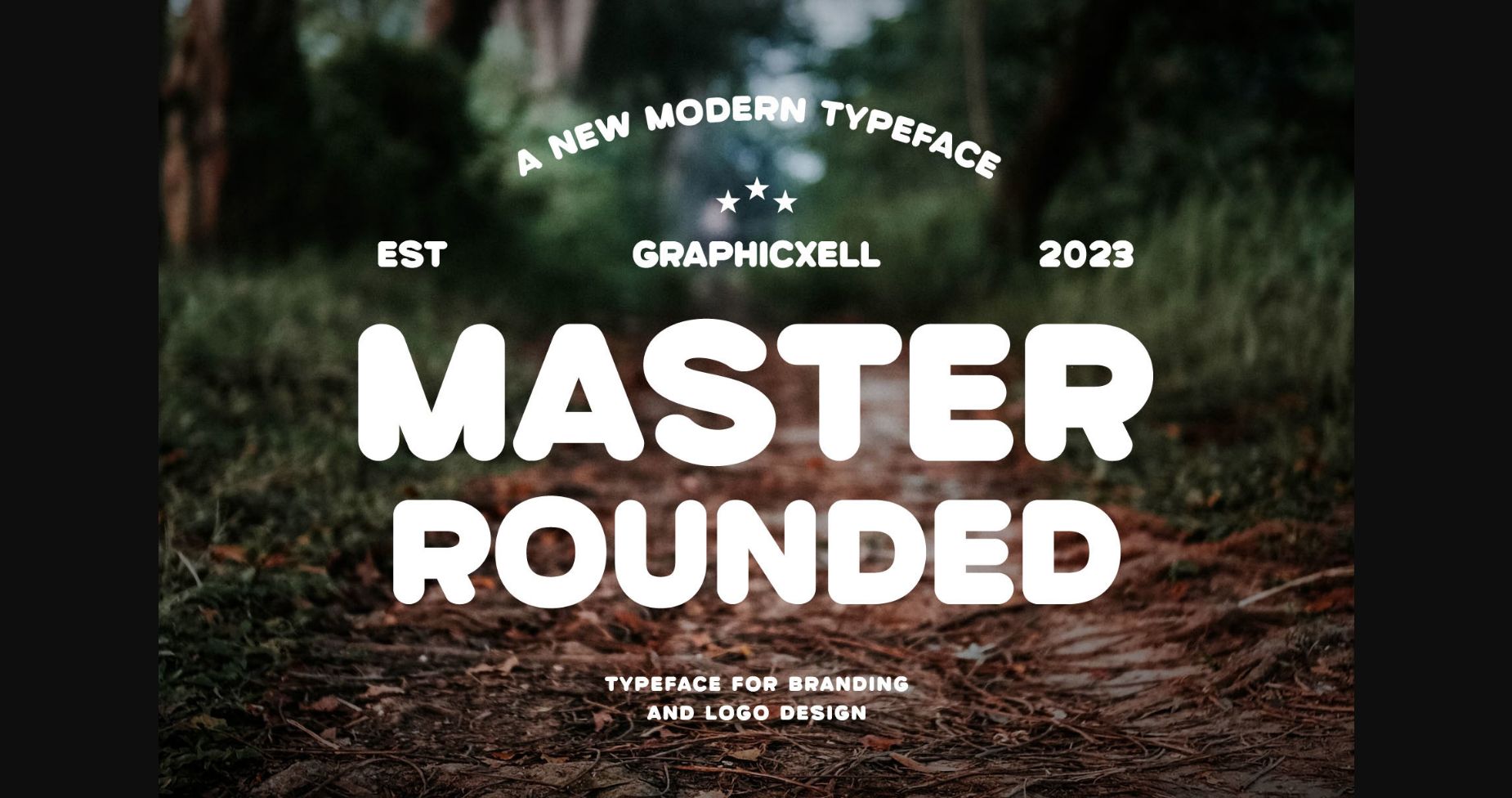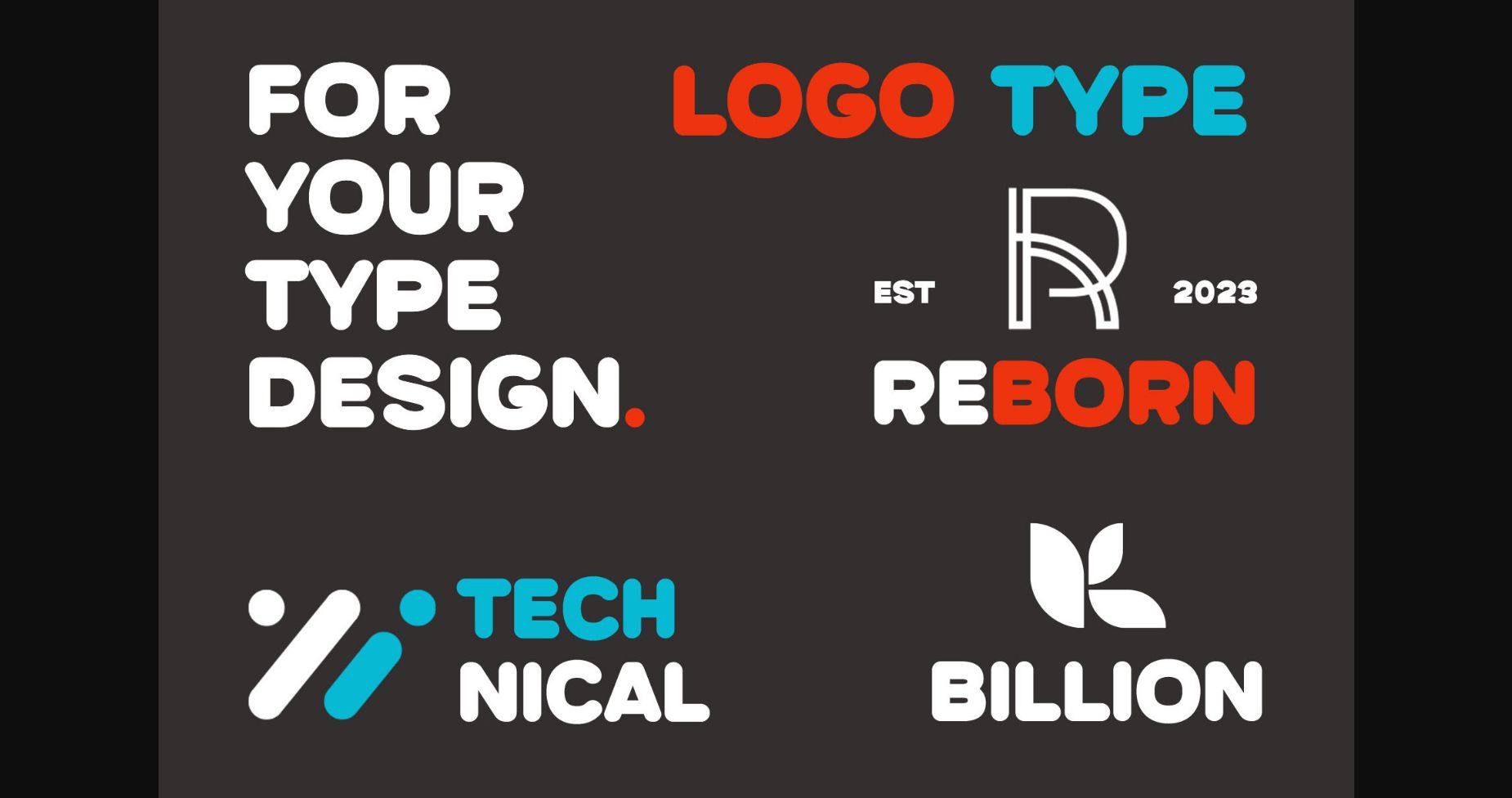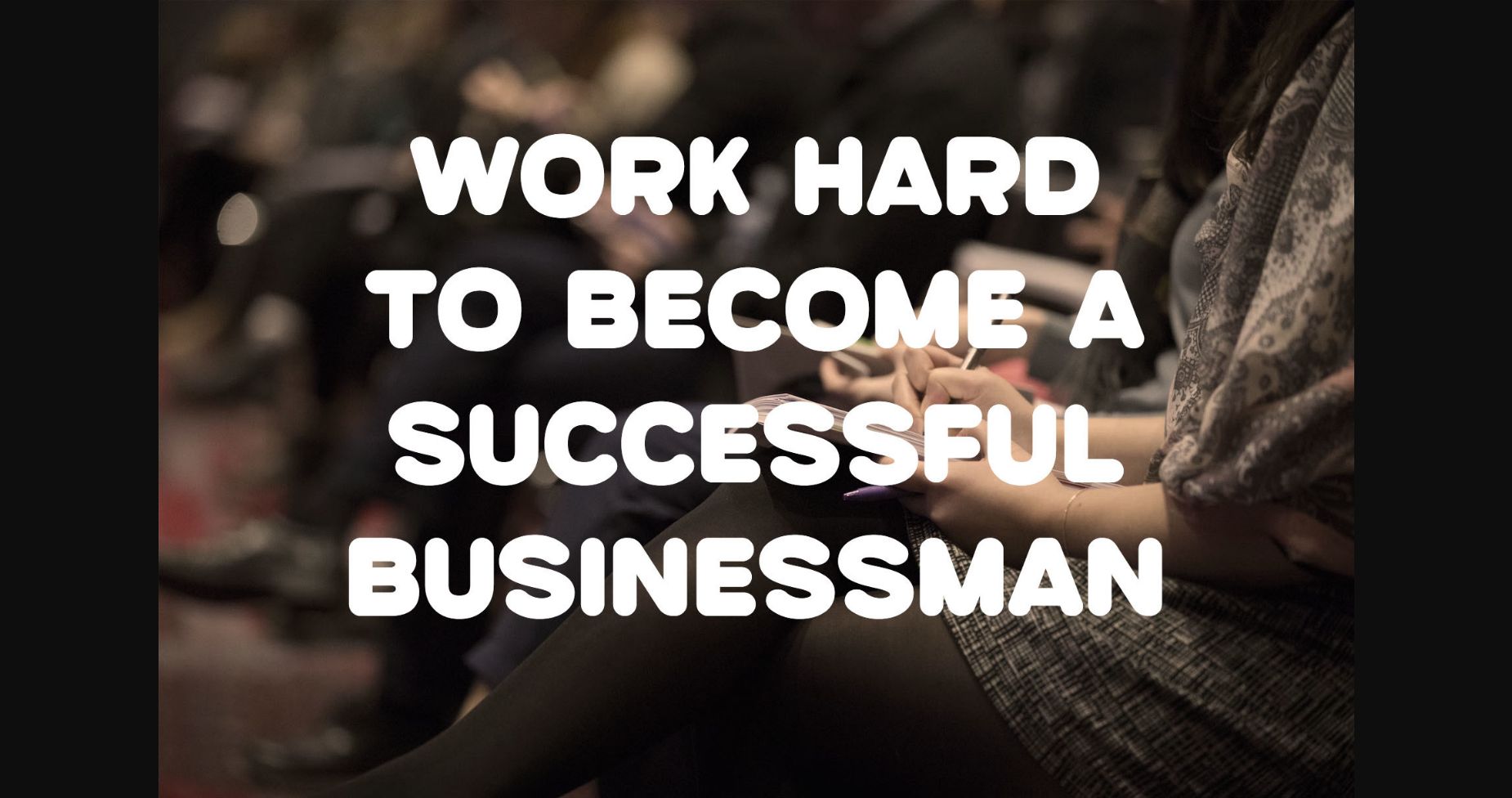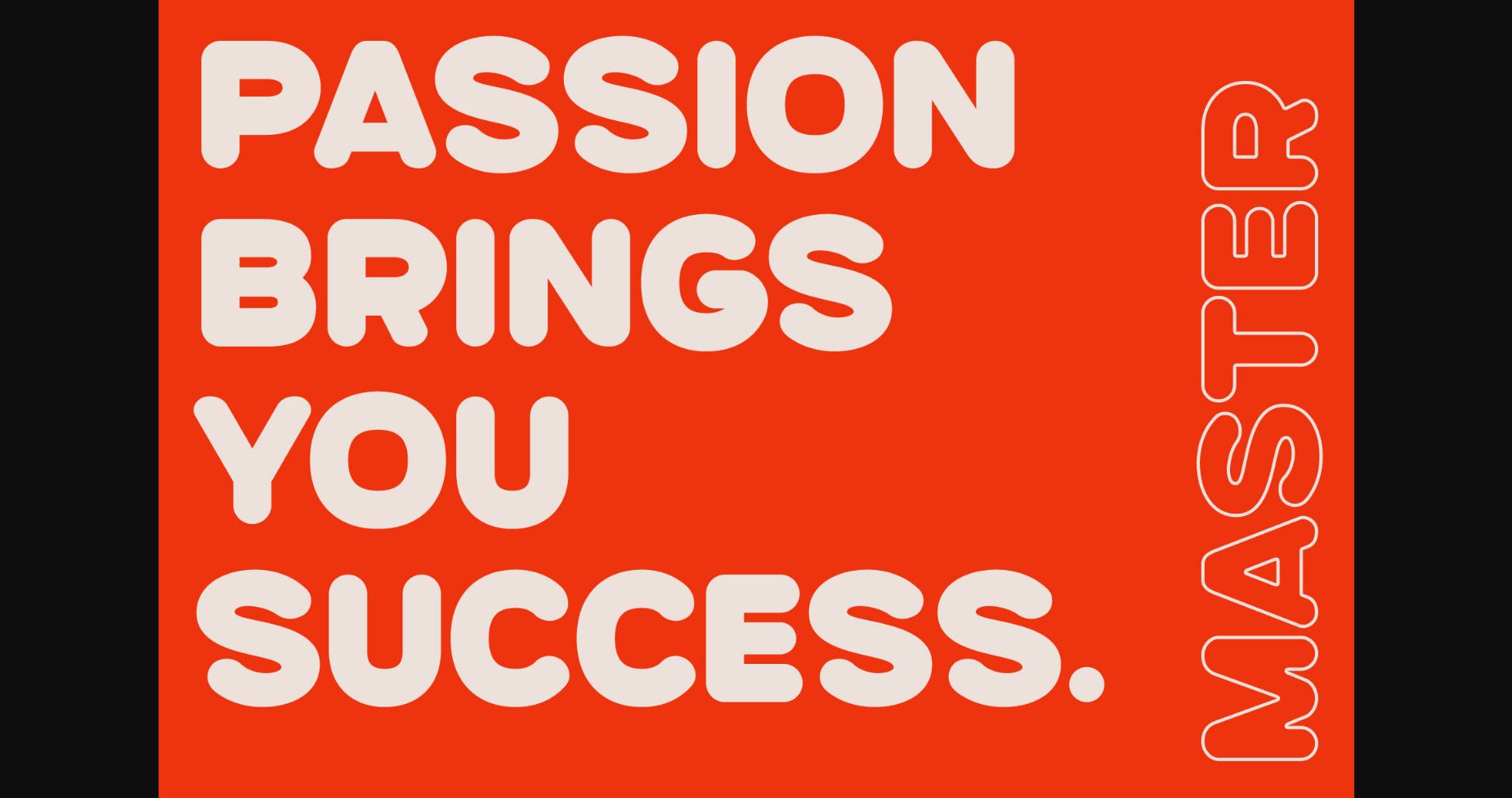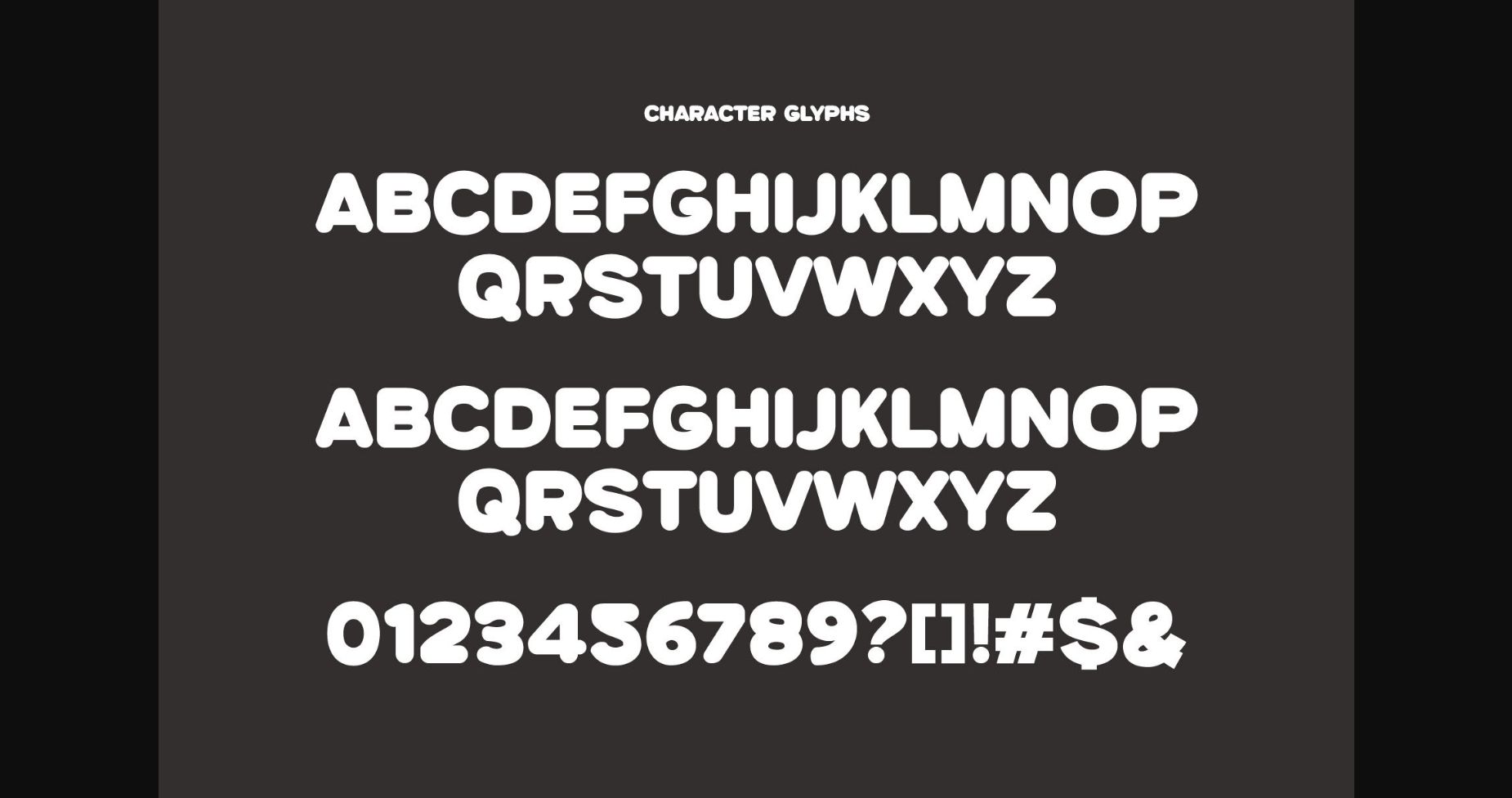
Master rounded is a clean and modern sans-serif font, with a minimalistic approach to design. It is highly legible and versatile, making it ideal for both digital and print uses.